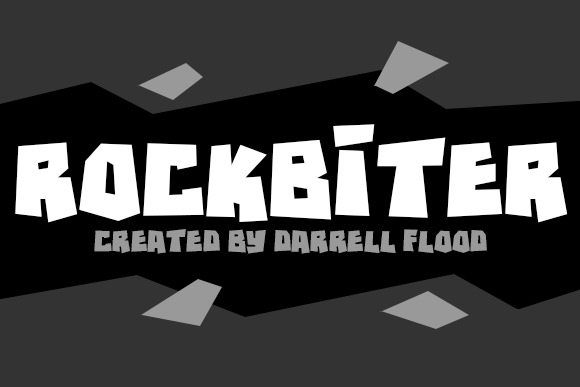
Unleash the power of Rockbiter Font, a bold and captivating display typeface that adds an instant touch of fantasy to your designs. Inspired by the rugged landscapes of mountains and dungeons, this all-caps font exudes strength and determination. Each character is meticulously crafted with sharp angles and bold lines, creating a visual impact that commands attention.
Rockbiter Font is the perfect choice for creating captivating headlines, logos, posters, book covers, and any project that demands a strong presence. With its unwavering personality, this font adds a touch of magic and adventure to your creative endeavors. Whether you're a seasoned designer or just starting out, Rockbiter Font is sure to leave a lasting impression on your audience.
Step into a realm of enchantment and let Rockbiter Font transport you to a world of wonder. Whether you're designing for a fantasy novel, creating a poster for a medieval fair, or simply adding a touch of intrigue to your social media posts, Rockbiter Font is the ultimate tool for making a statement.
Indulge in the versatility of Rockbiter Font and explore its limitless potential. Its adaptability shines in a variety of contexts, from website designs to product packaging, effortlessly elevating your projects with a touch of intrigue. Make a bold choice and embrace the power of Rockbiter Font today, and unlock a world of creative possibilities.